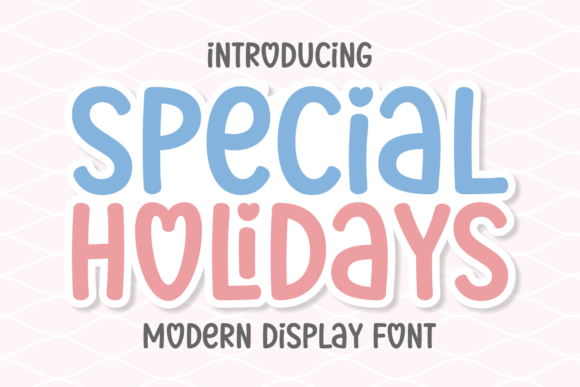
Special Holidays Font: Illuminating Your Valentine's Day Designs with Whimsical Charm
In the vast landscape of digital typography, few typefaces capture a specific season as effectively as Special Holidays. This lively, Valentineβs Day-focused font is meticulously crafted to add a sprinkle of whimsical charm to your masterpieces. Whether you are a seasoned graphic designer or a hobbyist creating personalized greeting cards, understanding how to leverage this unique typeface can transform ordinary text into an emotional experience. As we explore the radiant embrace of Special Holidays, we will discover how it brilliantly illuminates unique designs and acts as a typographic cherub, gracefully stirring the essence of love and joy.
The Essence of Seasonal Typography
Typography is more than just the arrangement of letters; it is the voice of your design. When selecting a font for a specific occasion, the goal is to evoke an immediate emotional response before the reader even processes the message. This is where seasonal fonts like Special Holidays excel. Unlike generic sans-serif or serif fonts that maintain neutrality, specialized typefaces carry inherent personality and context.
Special Holidays is designed specifically to reflect the spirit of Valentine's Day. It features spirited block letters that ooze bold and buoyant vibes, creating a visual language that speaks directly to themes of romance, celebration, and affection. In modern design, the choice of font is often the first decision a creator makes because it sets the tone for the entire project. By choosing a font that aligns perfectly with the holiday, designers ensure that their work feels authentic and timely.
Why Context Matters in Design
Imagine reading a heartfelt love letter written in a stark, industrial font. The disconnect between the message and the medium would likely dilute the emotion. Conversely, using a playful, heart-filled font for a serious legal document would be inappropriate. Special Holidays bridges the gap between the message of love and the visual presentation. It serves as a vessel for the "radiant embrace" mentioned in its description, ensuring that the viewer feels the warmth of the occasion immediately.
Analyzing the Design: Bold and Buoyant Vibes
To truly appreciate Special Holidays, one must look closely at its structural elements. The font is characterized by its robust, block-like structure, which provides excellent legibility even at larger sizes. However, it is not merely a heavy slab; it incorporates subtle curves and dynamic angles that prevent it from feeling rigid.
- Spirited Block Letters: The core of the font relies on thick, confident strokes. These blocks create a sense of stability and importance, making headlines pop against various backgrounds.
- Bold and Buoyant Aesthetics: Despite their weight, the letters feel light and airy. This "buoyancy" is achieved through generous spacing (kerning) and the upward tilt of certain character elements, mimicking the feeling of floating or soaring with joy.
- Whimsical Details: While maintaining readability, the font includes decorative flourishes that hint at hearts, bows, or festive motifs without becoming illegible script.
This combination allows Special Holidays to function as a versatile tool. It is strong enough to command attention on a poster but soft enough to convey tenderness on a greeting card. The design philosophy behind it suggests that love should be both bold and uplifting, a sentiment that resonates deeply with the audience during February.
Practical Applications in Modern Creativity
The versatility of Special Holidays makes it an ideal inclusion for a wide range of projects. From small-scale personal crafts to large-scale commercial campaigns, this font offers practical relevance across various industries.
Enchanting Greeting Cards and Invitations
For individuals looking to scatter love and joy across customized creations, greeting cards remain the most popular application. The font's ability to stand out ensures that the recipient's name or a short romantic phrase becomes the focal point of the card. Because the letters are blocky, they pair beautifully with delicate illustrations, allowing the art to breathe while the text anchors the design.
Compelling Social Media Posts
In the fast-paced world of social media, capturing attention within milliseconds is crucial. Brands and influencers use Special Holidays to create eye-catching graphics for Instagram stories, Facebook posts, and Pinterest pins. The bold nature of the font ensures readability on mobile screens, while the thematic relevance boosts engagement rates during the Valentine's season. A simple quote about love, rendered in this typeface, can instantly signal to the user that the content is relevant to their current mood and calendar.
Posters and Event Marketing
Businesses hosting Valentine's Day events, such as restaurants, florists, or boutiques, rely heavily on visual marketing. Posters featuring Special Holidays can act as a beacon, drawing customers in with a promise of celebration. The font's "typographic cherub" quality helps brands appear friendly and approachable rather than overly corporate. It humanizes the brand, suggesting that the business cares about the customer's emotional well-being.
As we navigate the intersection of technology and tradition, tools like Special Holidays remind us that design is ultimately about connection. It allows us to communicate the intangible feelings of romance and celebration in a tangible way. So, let this typographic cherub guide your next project, and watch as your designs come alive with the radiant spirit of the season.